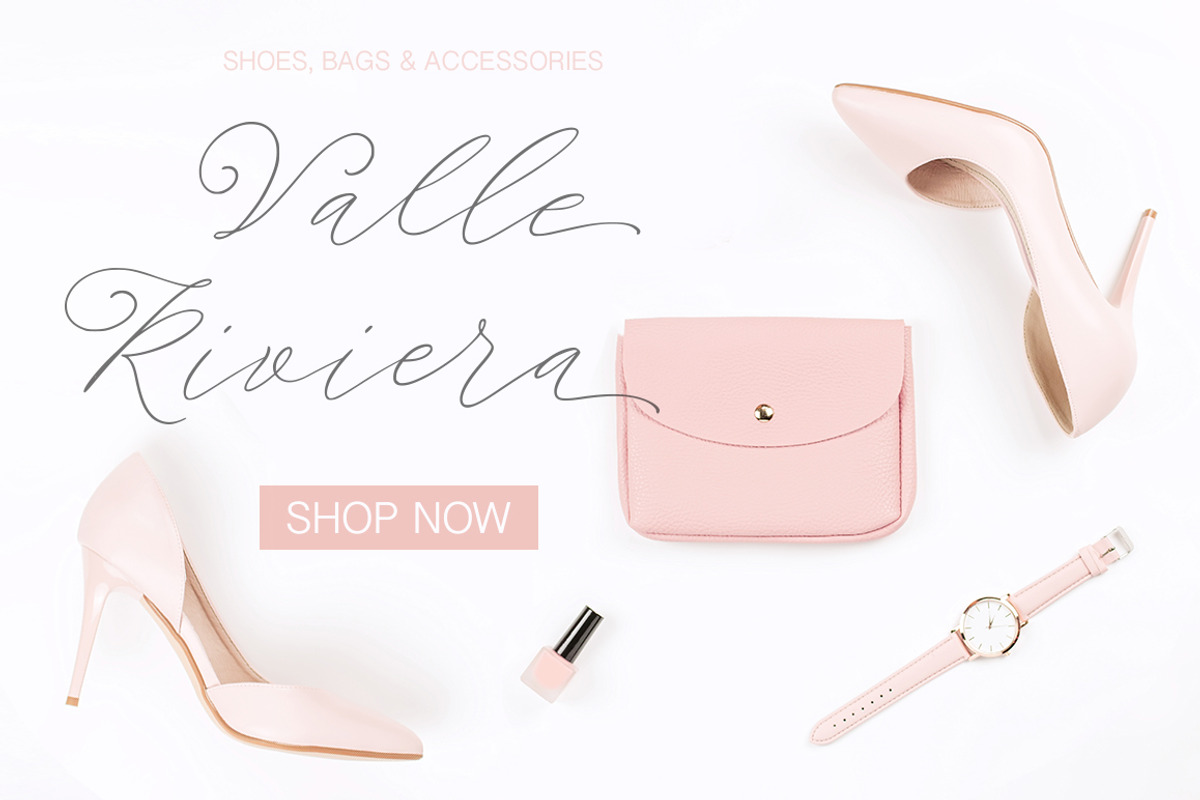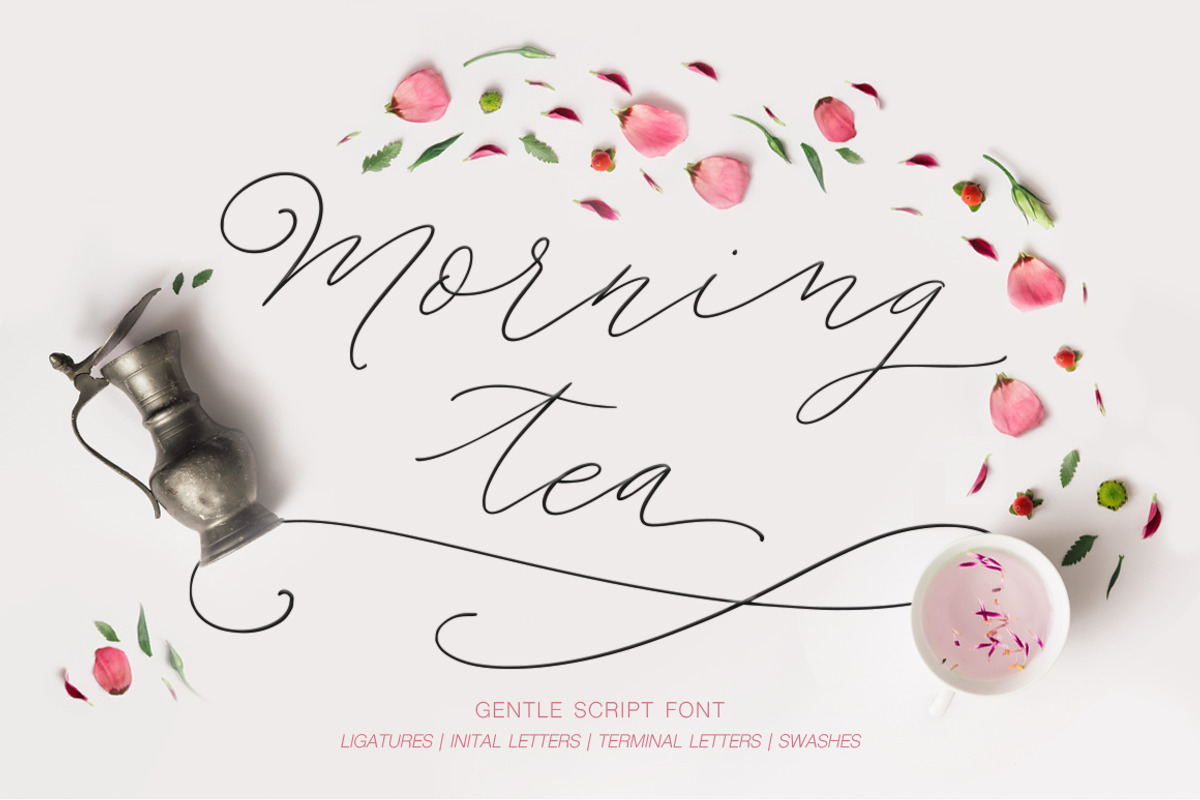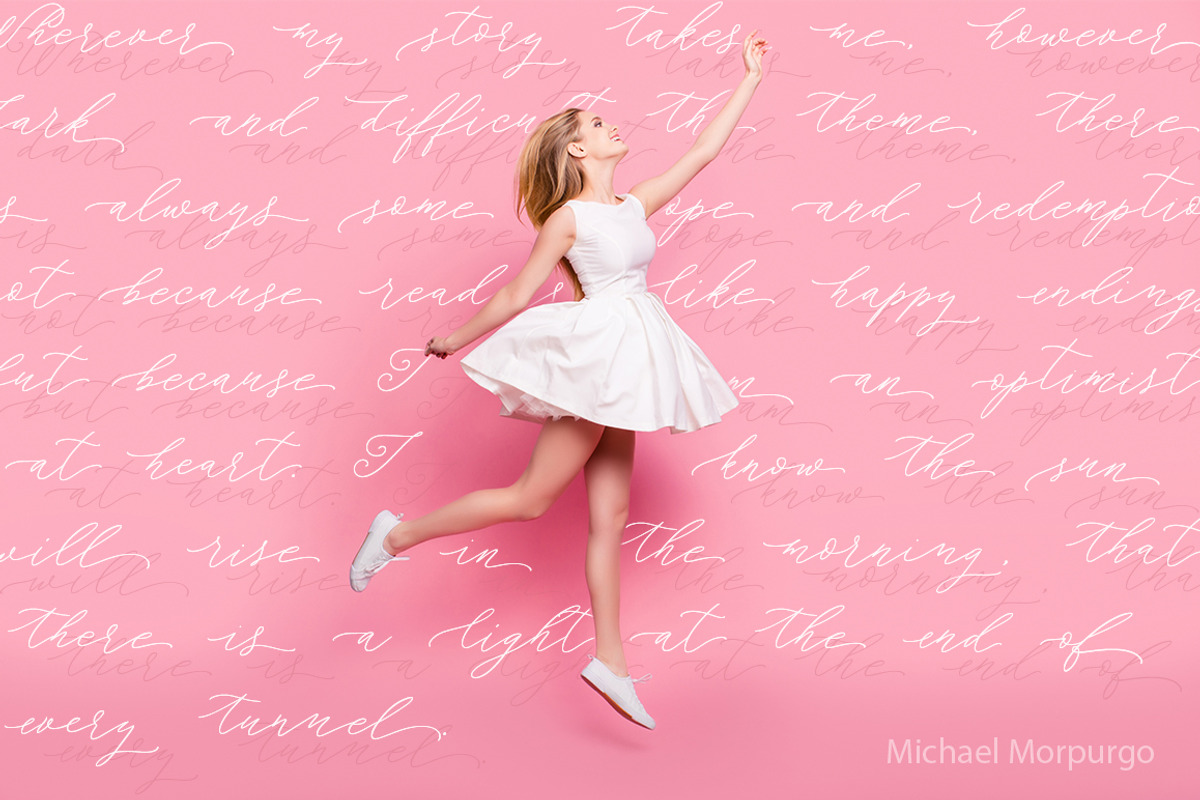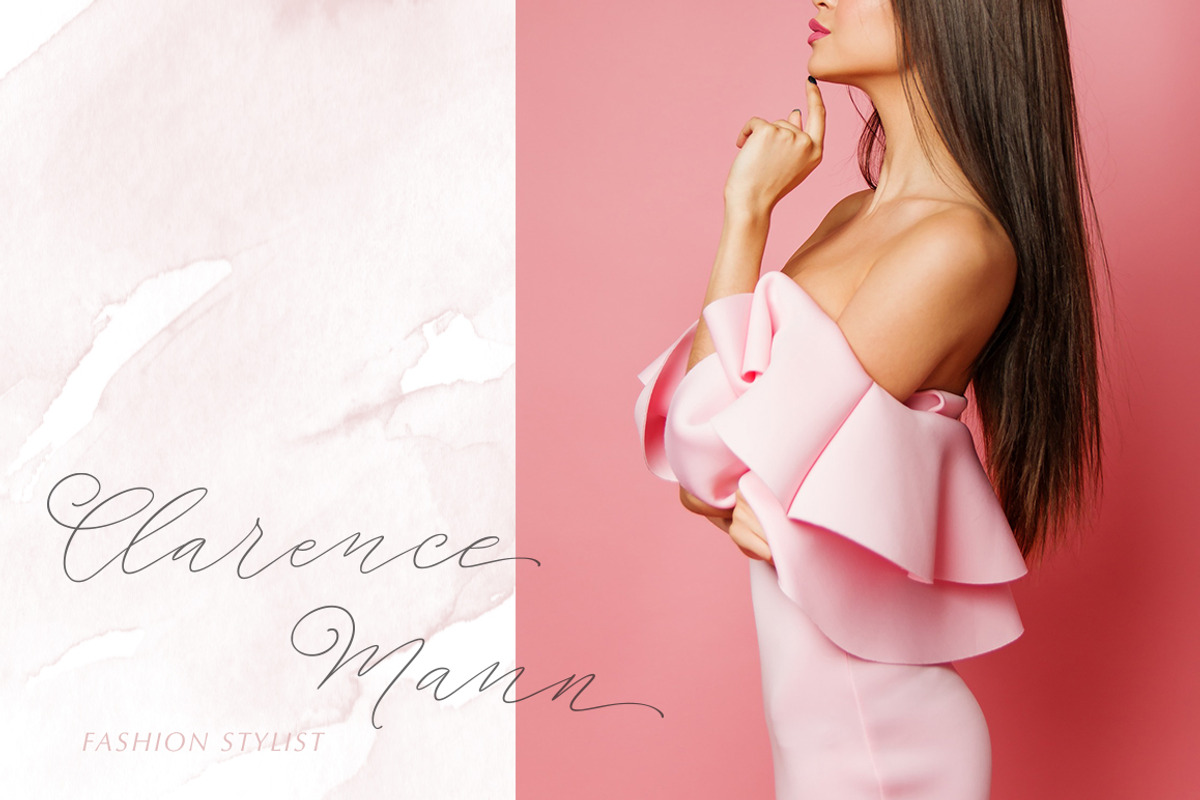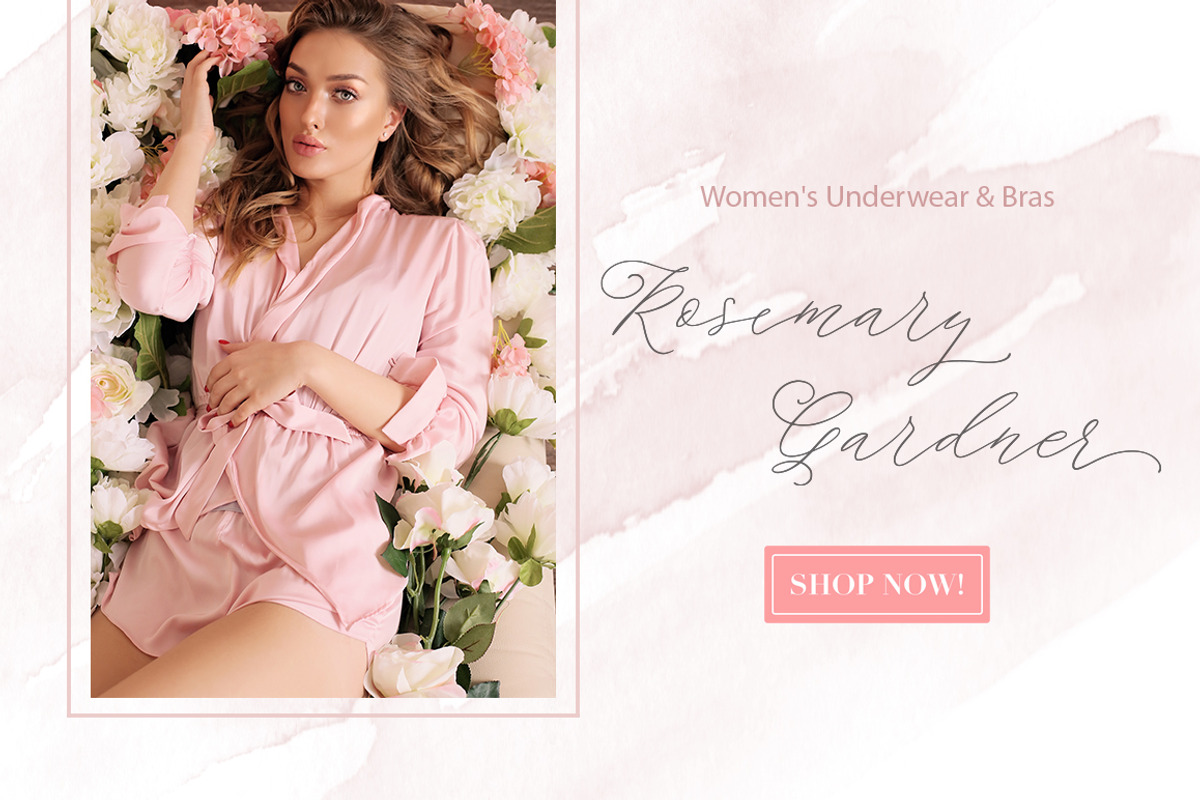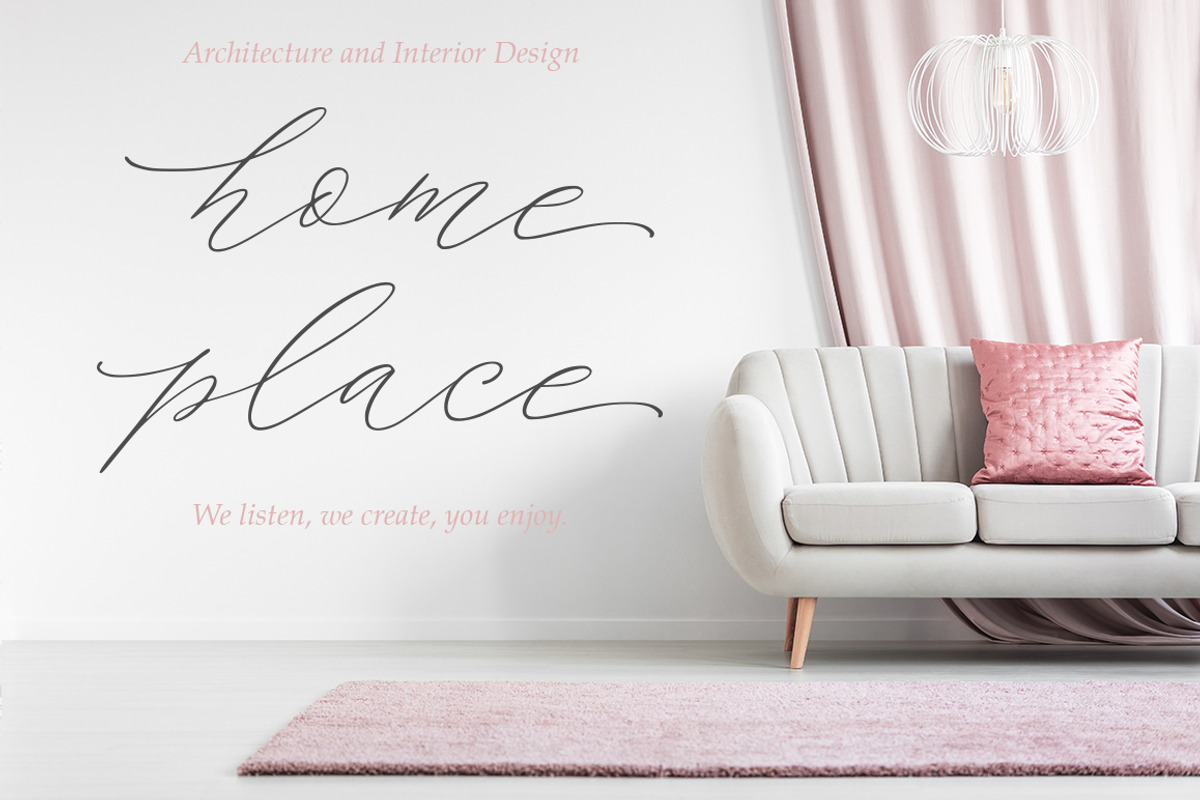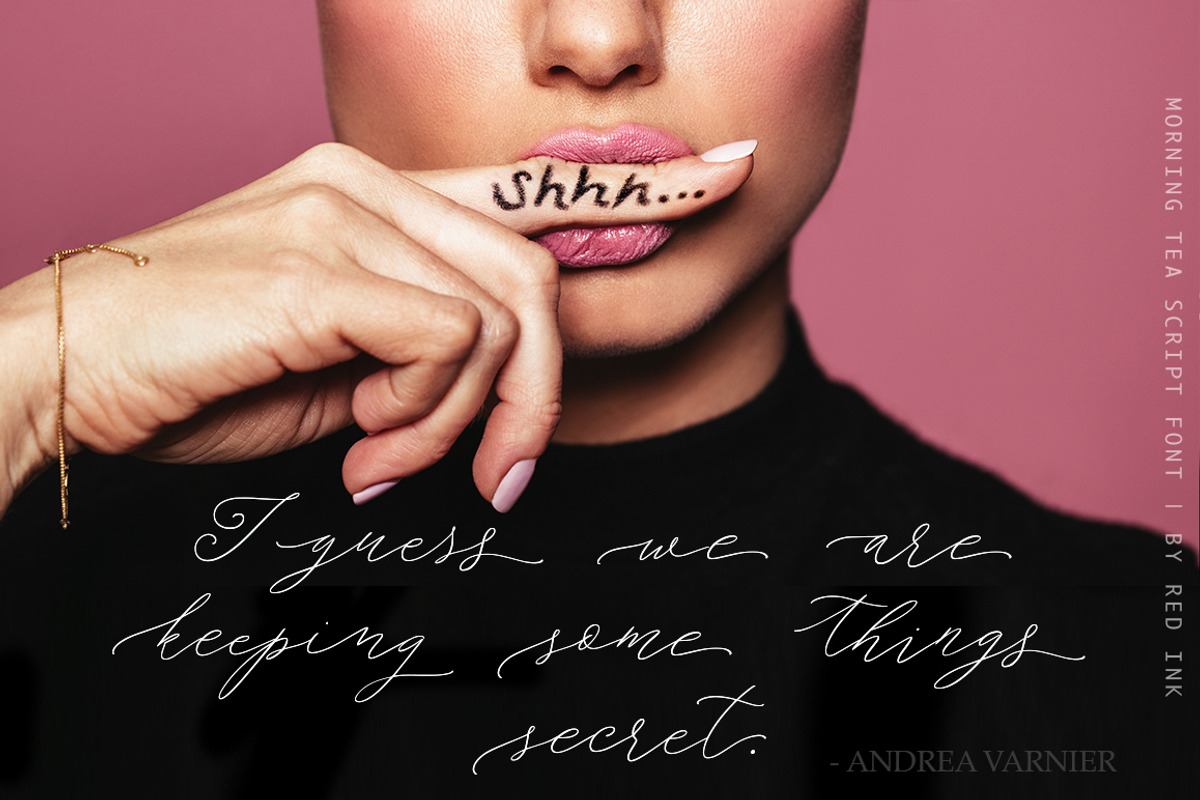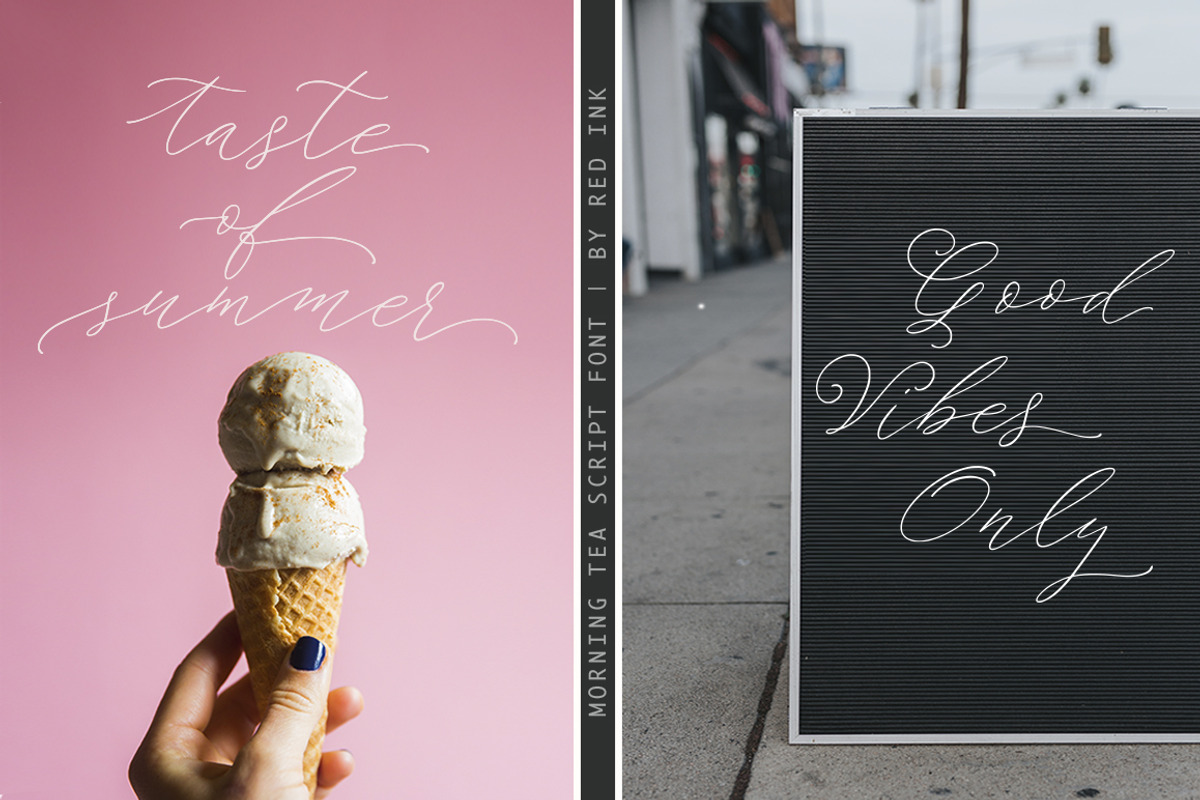
Morning tea. Script font.
Morning tea is gentle signature hand drawn font. Tons of ligatures, initial and terminal letters for all lowercase glyphs help to imitate handwriting like never before. This font is all filled with calligraphic magic, just make sure that OTF is enabled and just type your texts - youāll see the incredible font organicity and variety of letters and combinations.
Morning tea font perfect for branding projects, your logo designs, handwritten quotes and gentle romantic messages.